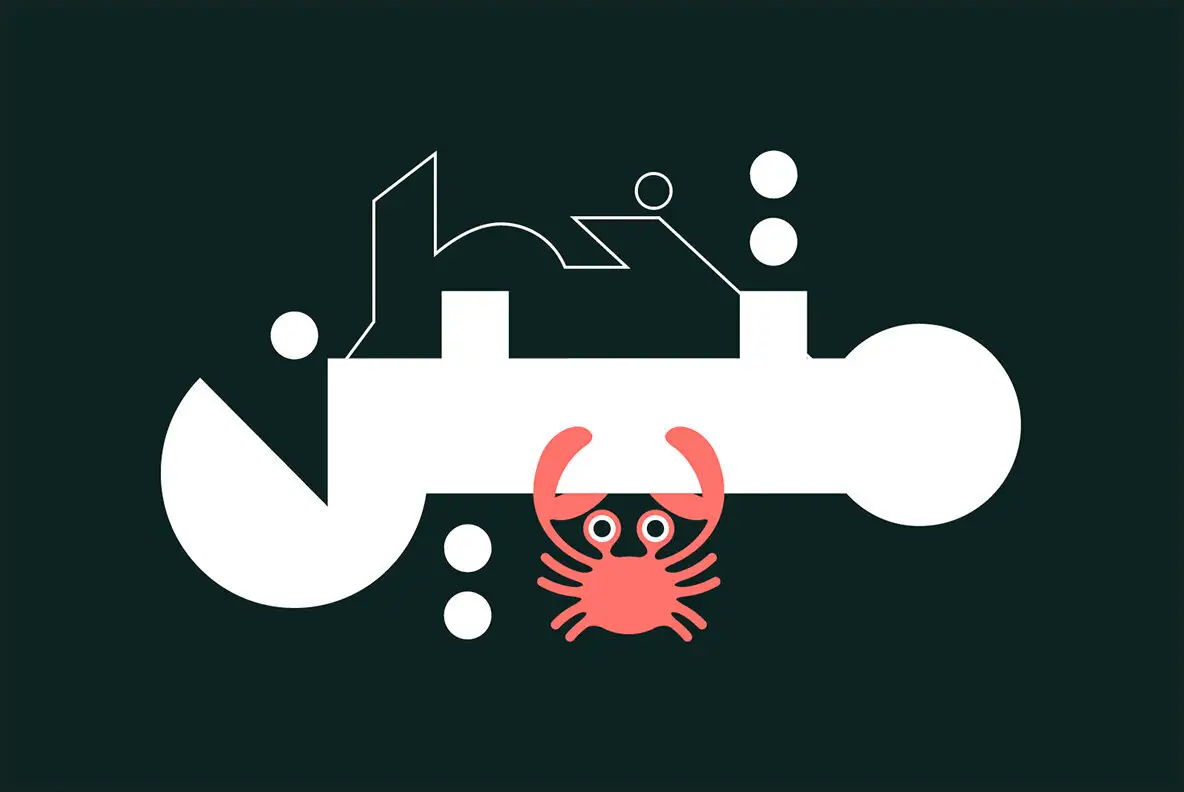
Mateen Font
Mateen Bold
Mateen (which is the Arabic word for Durable) is an Arabic display font that features sharp and heavy letterforms. The design is inspired by some Arabic writing techniques that characterized Arab ads in the 1970s and 1980s. Mateen is suitable for creative titles in various applications including web design, print ads, publication and mobile applications.